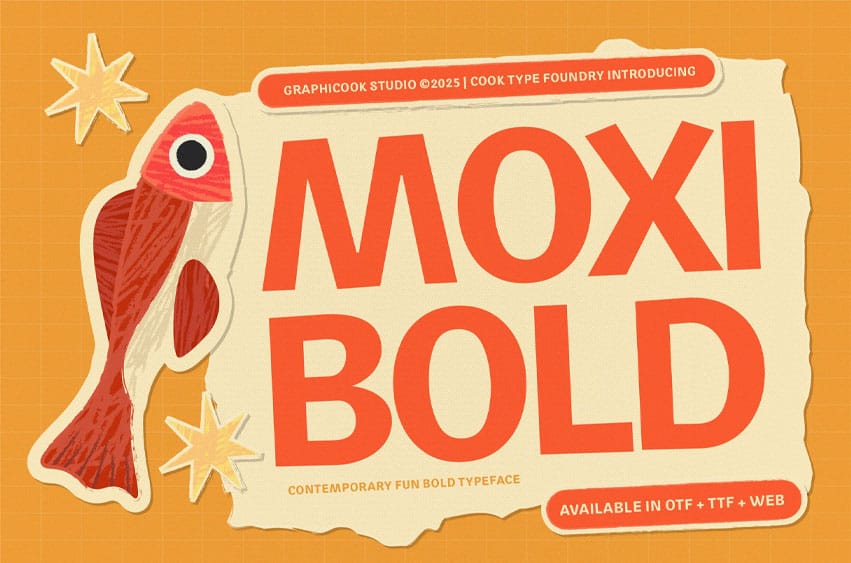
Moxibold Font is a sans-serif font featuring several uniquely shaped, unconventional letters that convey a fun and playful tone. Ideal for bold, expressive designs with a strong personality.
Moxibold is perfect for headlines, logotypes, magazines, packaging, quotes, movies, games, cover albums, book covers, and flyers, it’s a perfect solution for creating eye-catching designs that stand out in any context.